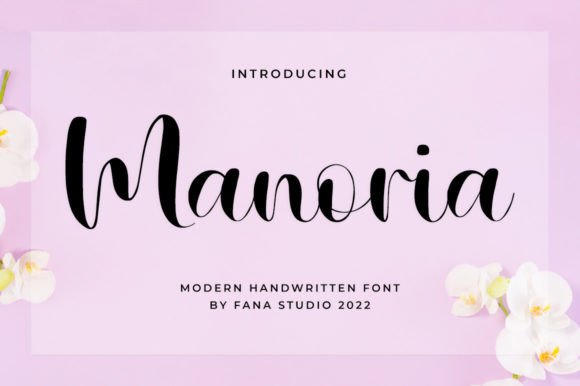
Introducing Manoria Font - A Graceful Script for Enchanting Creations
In a world where visual communication reigns supreme, your words have the power to captivate, inspire, and ignite emotions. Manoria Font, a script typeface born from the fusion of charm and elegance, empowers you to transform your messages into captivating works of art.
With its flowing curves and delicate strokes, Manoria Font exudes a timeless allure that transcends trends. It's a font that whispers of heartfelt emotions, making it the perfect choice for wedding invitations, thank-you cards, and heartfelt quotes. Its versatility extends to greeting cards, logos, business cards, and any design yearning for a touch of handwritten grace.
Manoria Font is more than just a collection of characters; it's an invitation to unleash your creativity and embrace the beauty of self-expression. Its effortless elegance elevates ordinary words into captivating statements, leaving an indelible mark on the hearts of your audience.
Imagine your wedding invitation adorned with Manoria Font's enchanting script, hinting at the love and joy that awaits your guests. Picture your thank-you cards expressing heartfelt gratitude with a touch of sophistication. Envision your business cards making a lasting impression, conveying professionalism and creativity in equal measure.
With Manoria Font, your designs transcend the ordinary, becoming cherished keepsakes that tell stories and evoke emotions. Its versatility knows no bounds, allowing you to craft stunning social media posts, eye-catching flyers, and captivating posters that demand attention.
Join the creative revolution and let Manoria Font ignite your imagination. Its user-friendly design makes it accessible to both seasoned designers and those new to the world of typography. Unleash your inner artist and create designs that resonate with your audience, leaving them spellbound by your words.
Step into the realm of elegance and grace with Manoria Font. Elevate your designs, capture hearts, and make a lasting impact. The world awaits your creative brilliance - let Manoria Font be your guiding light.